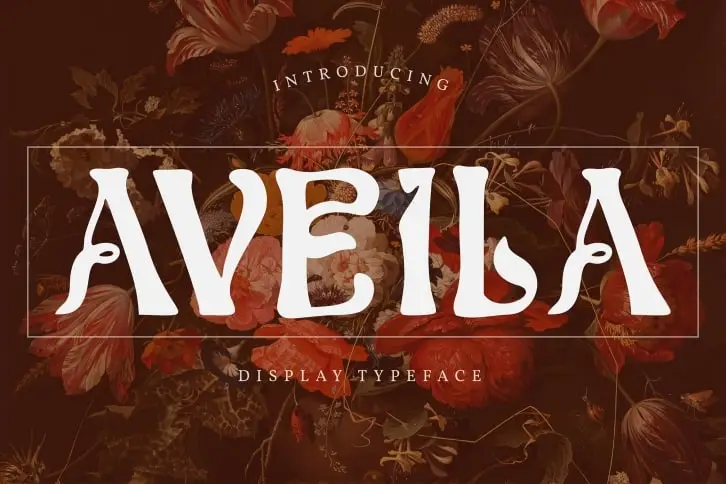
Vunira-Aveila Font
The Vunira-Aveila Font is a beautifully crafted typeface designed for various creative projects. Its unique style combines elegance and modernity, making it suitable for both digital and print applications.
This font is perfect for branding, logo design, website headers, and print materials such as business cards and flyers. Its distinctive character will add a unique touch to your projects.